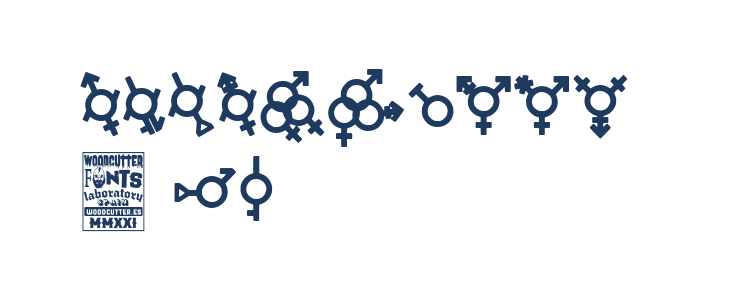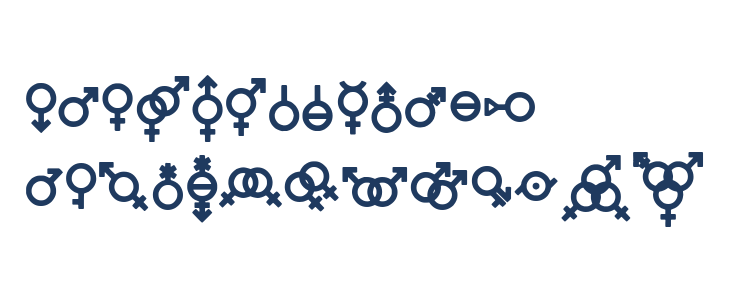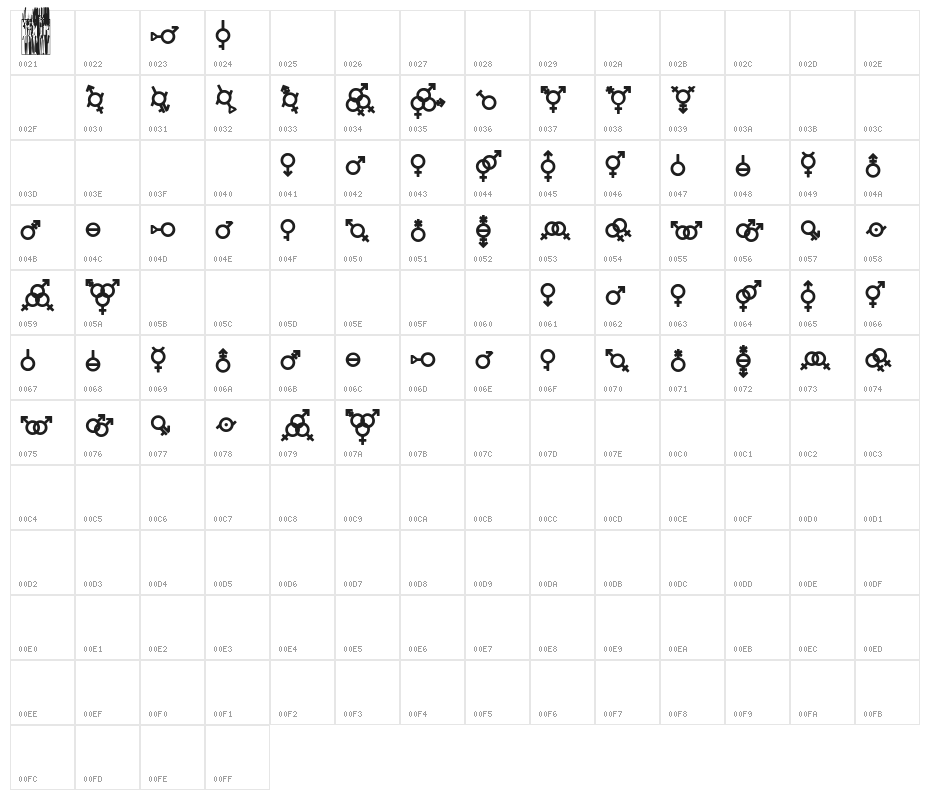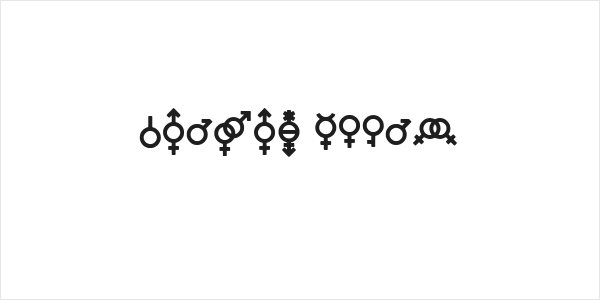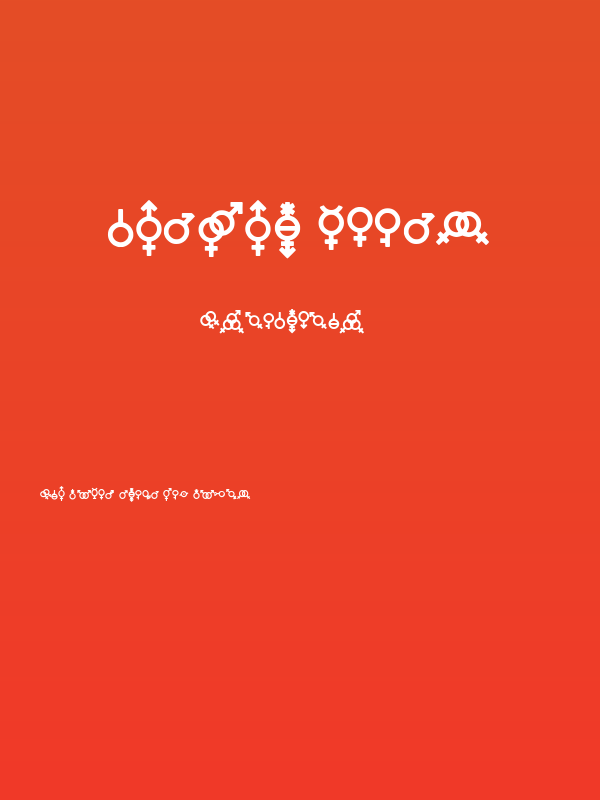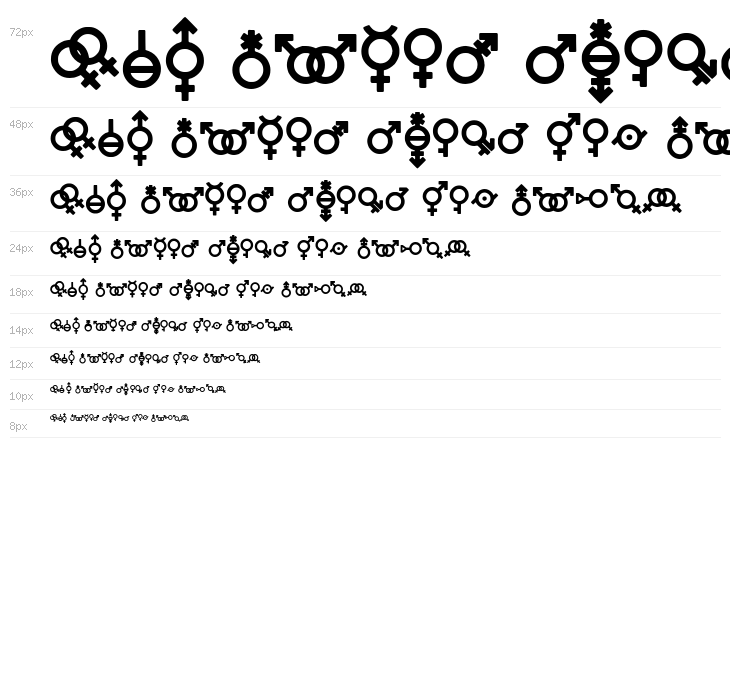
Gender Icons Font
Gender Icons Description
A collection of bold, geometric gender and identity symbols rendered in a consistent, thick-lined style. The icons are clear, highly legible, and visually balanced, with uniform stroke weights and circular forms.
| Overall Style | Modern, Symbolic, Informative |
| Use Case | Icons, Signage, Educational graphics, Posters |
| Proposed Projects | Infographics, educational materials, diversity and inclusion campaigns, signage, presentations, and digital interfaces. |